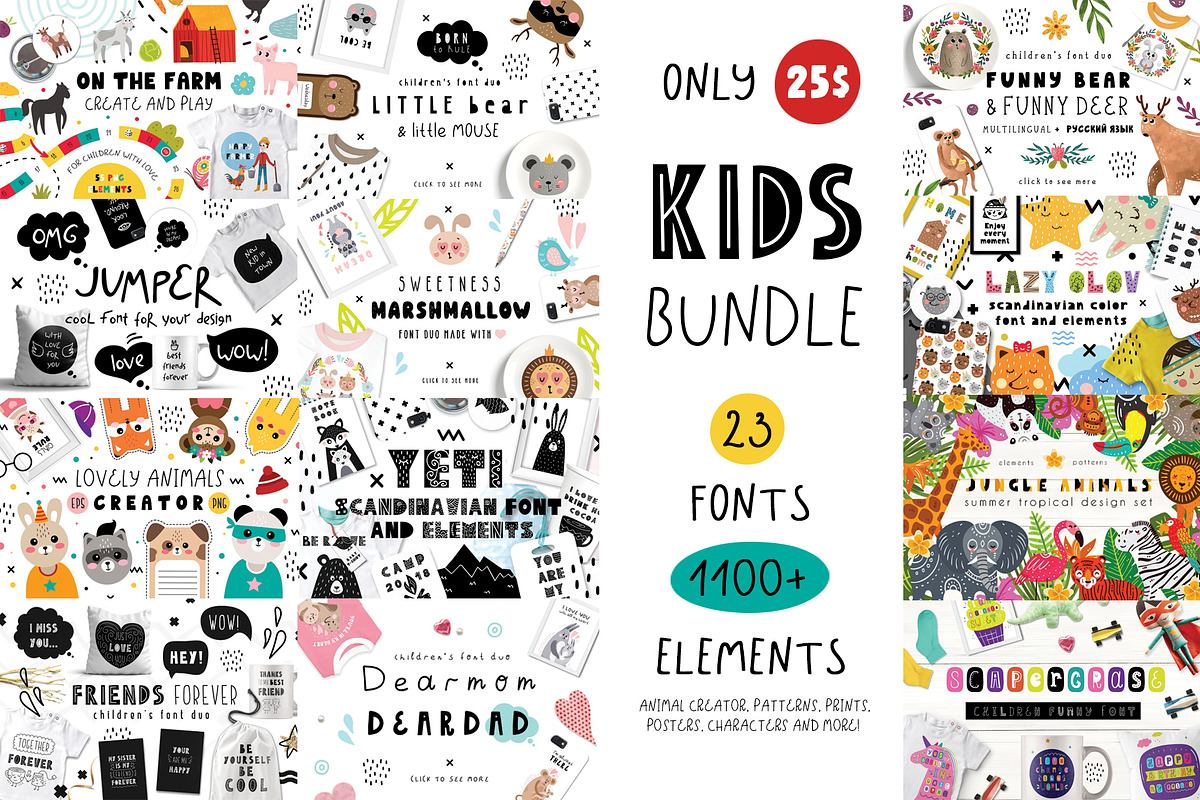
Kids Bundle: Fonts and Graphics Free Download is a cheerful and creative collection perfect for children's design projects. Packed with playful fonts and colorful, kid-friendly graphics, this bundle is ideal for classroom materials, birthday invitations, children’s books, apparel, stickers, posters, and educational printables. Each font in the bundle features fun, easy-to-read lettering styles that spark imagination and joy.
The included graphics complement the fonts with charming illustrations—ranging from animals and toys to school supplies and seasonal elements—making it easy to create themed designs with consistency and flair.